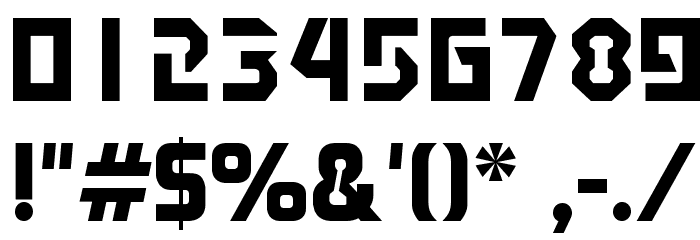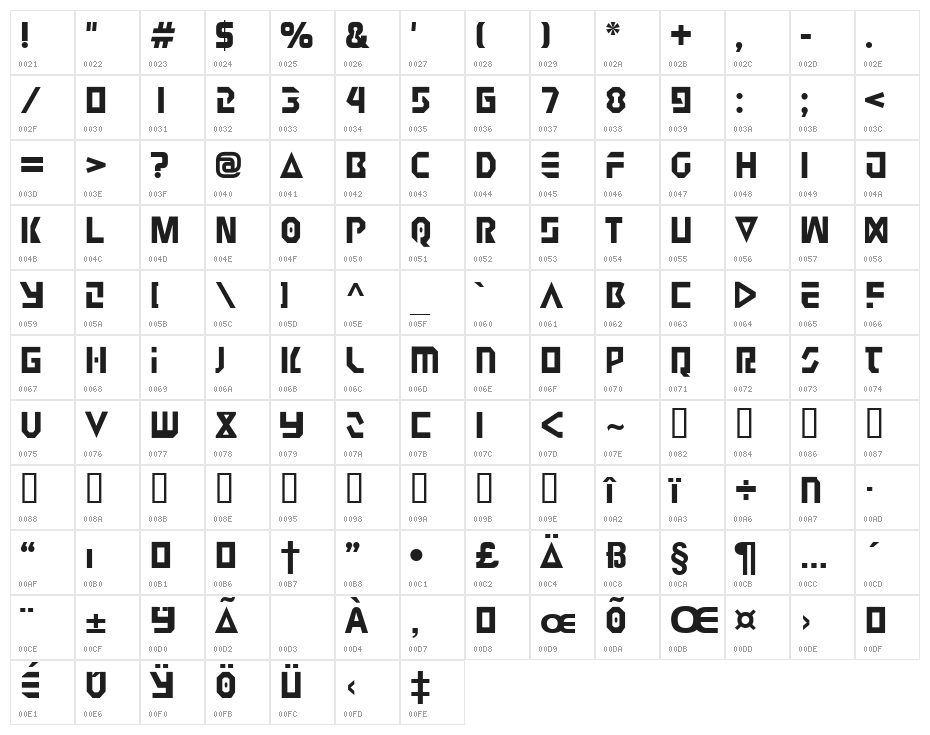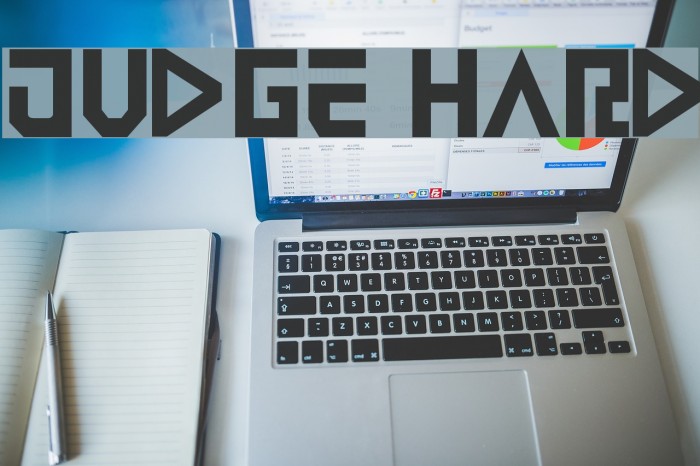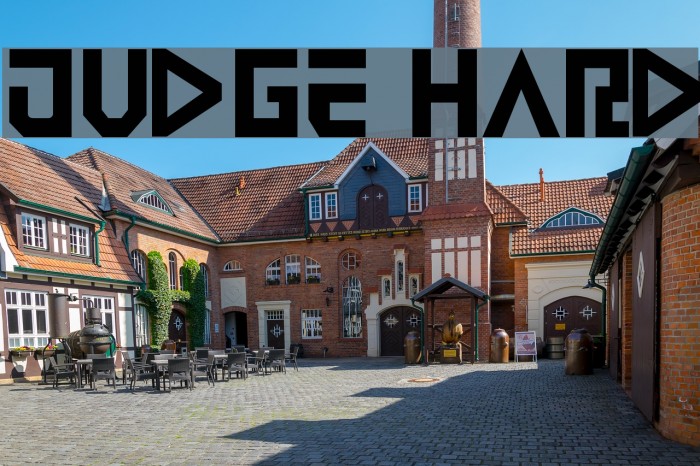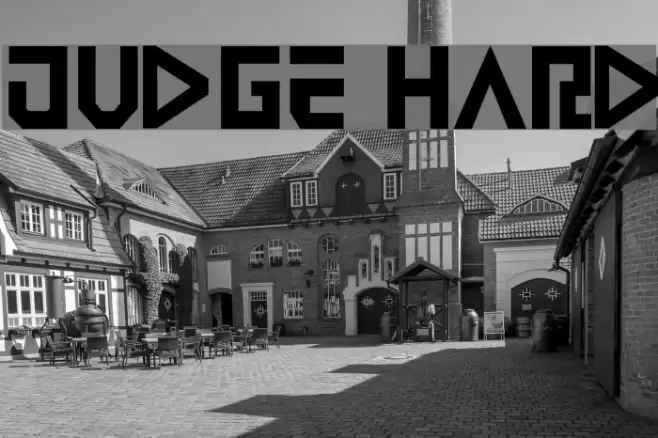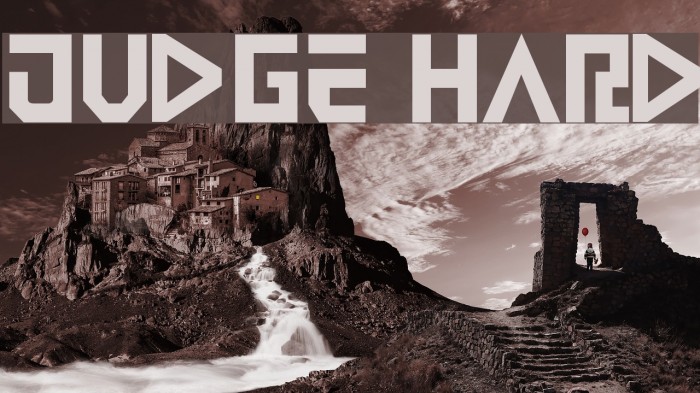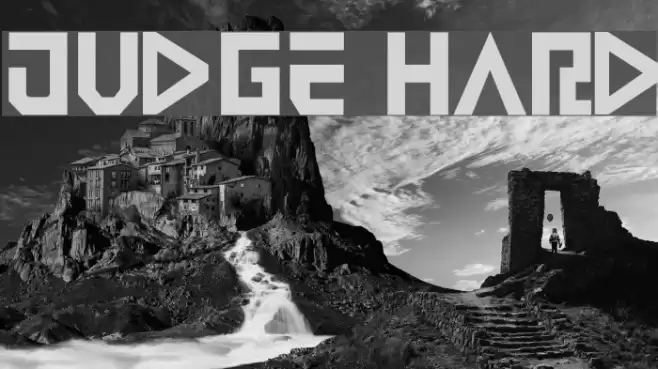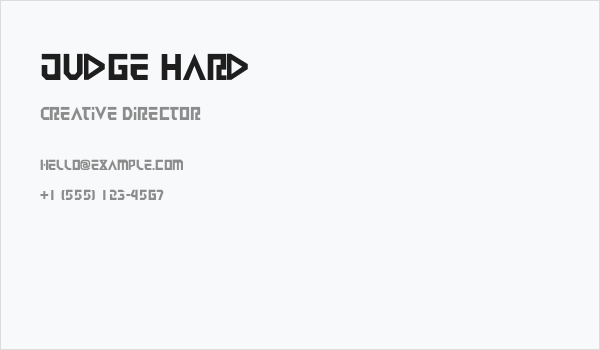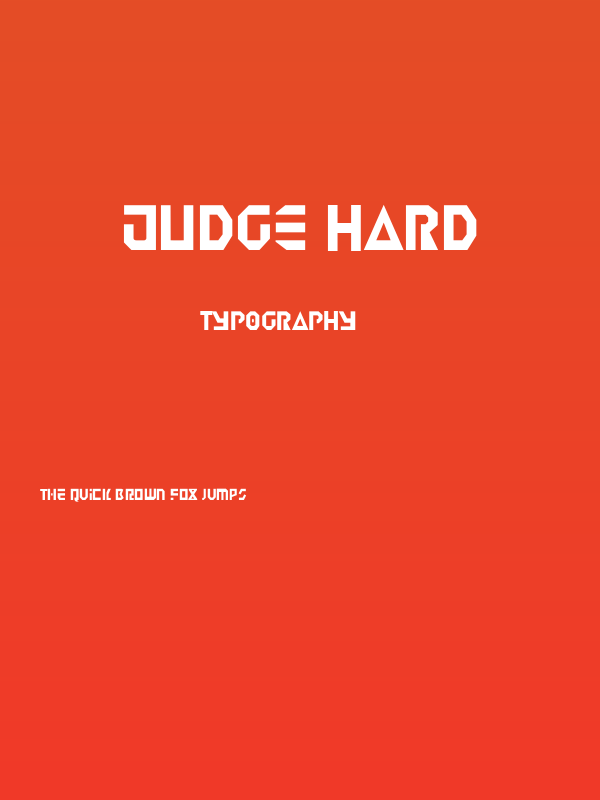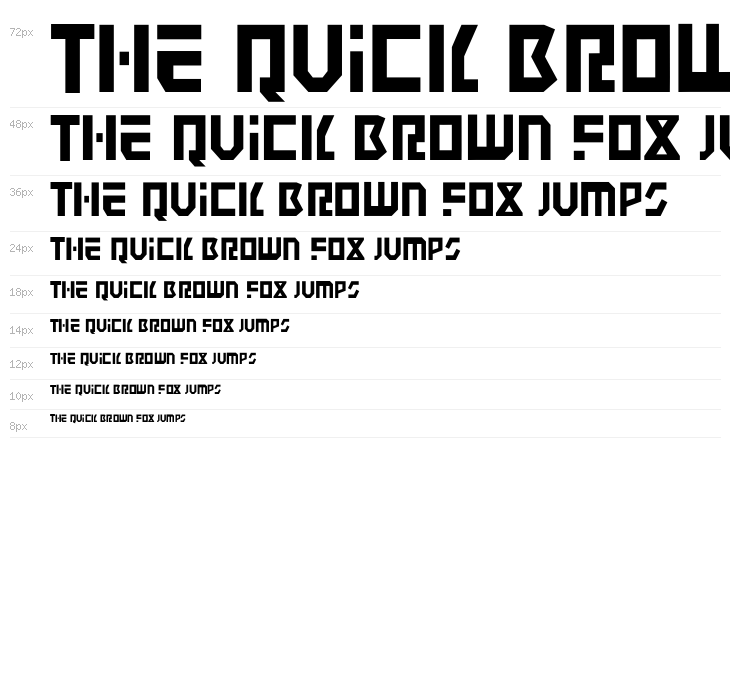
Judge Hard Font
Judge Hard Description
This font features a bold, geometric design with sharp angles and a futuristic aesthetic. The characters are constructed with thick strokes, creating a strong visual impact. The uppercase and lowercase letters maintain a consistent style, with unique cutouts and angular shapes that give the font a distinctive look. The numbers and special characters follow the same design principles, ensuring uniformity across all elements. This font is ideal for projects that require a modern and edgy appearance, such as technology branding, video game titles, or sci-fi themed designs.
| Proposed Projects | Ideal for technology branding, video game titles, sci-fi themes, and modern posters. |